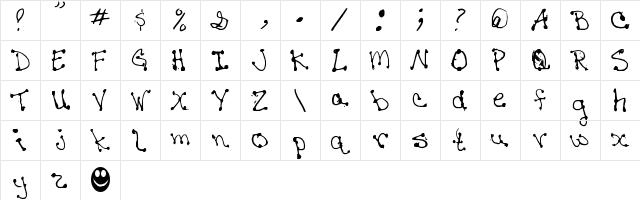
Janine's Writing Regular
Design Context for Janine's Writing Typeface
Janine's Writing is a composed and adaptable typeface that performs quietly and consistently across a wide range of design contexts.